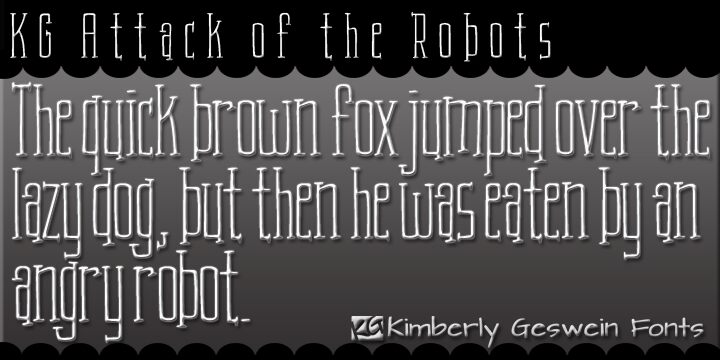
KG Attack of the Robots, designed by Kimberly Geswein, is a free comic display font with exceptionally tall, narrow lettering. Its rounded corners and uneven stroke joins give the forms a wiry, hand-drawn mechanical look. Tiny bars, hooked ends, and squared curves recall the improvised controls of a cartoon machine.
Retro robot comics provide the clearest setting for this design, which could also suit science event posters and arcade title cards. Licensed merchandise turns the towering letters into a character-driven graphic. For toy packaging, the lettering can become part of the robot's control-panel label rather than ordinary printed product text.